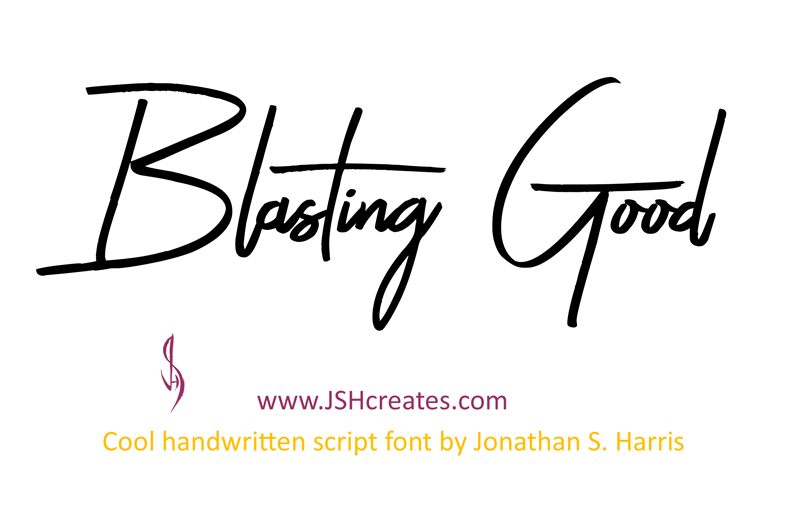
Blasting Good
Blasting Good, a delightful creation by JSH creates, is a light, handwritten font that exudes charm and elegance. With its whimsical curves and playful strokes, it adds a touch of sophistication to any project. Perfect for wedding invitations, greeting cards, and branding materials, this font effortlessly captures attention and creates a warm, inviting atmosphere. Blasting Good shines in projects seeking a personal touch or aiming to evoke nostalgia. Whether you're designing an enchanting storybook or crafting an engaging social media post, this font will infuse your work with creativity and grace.